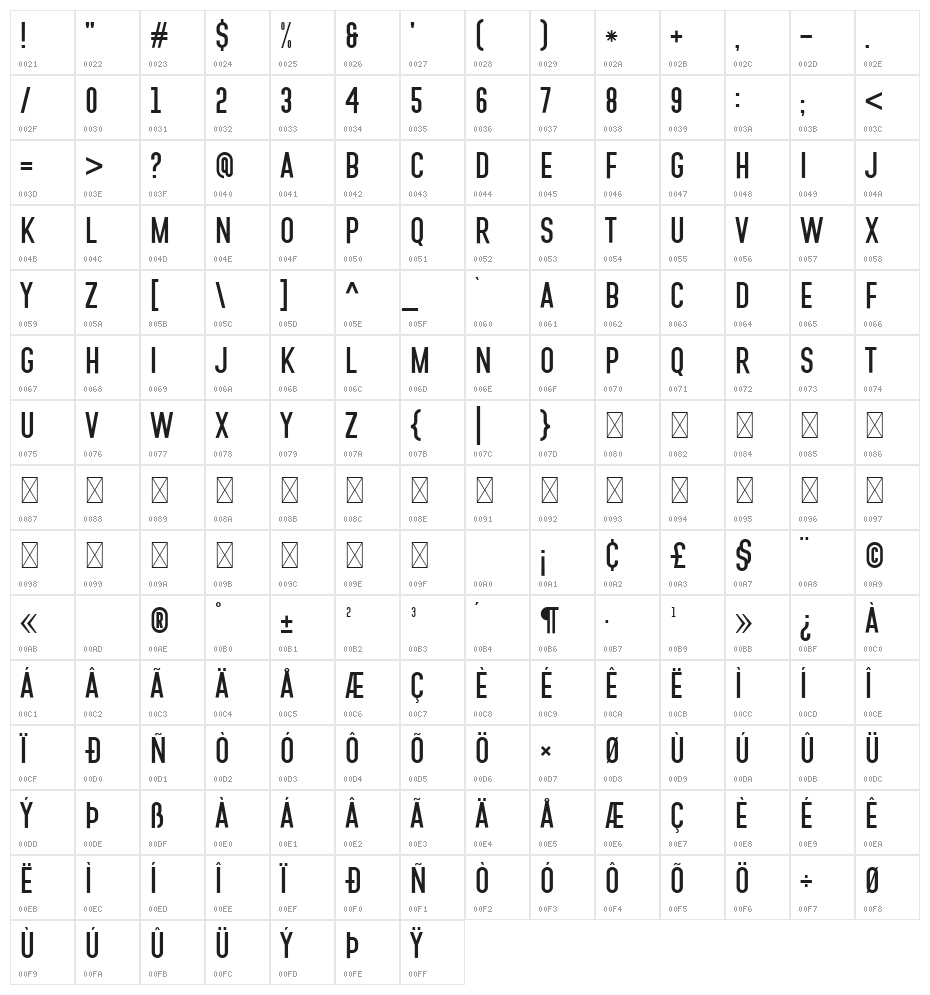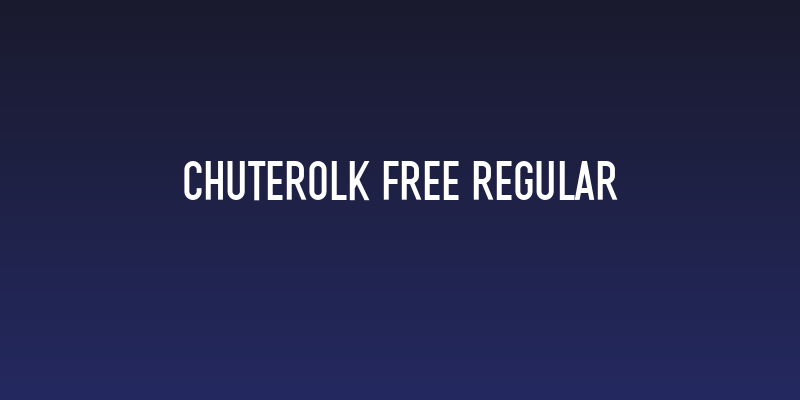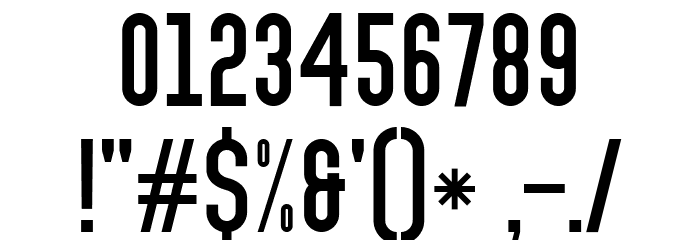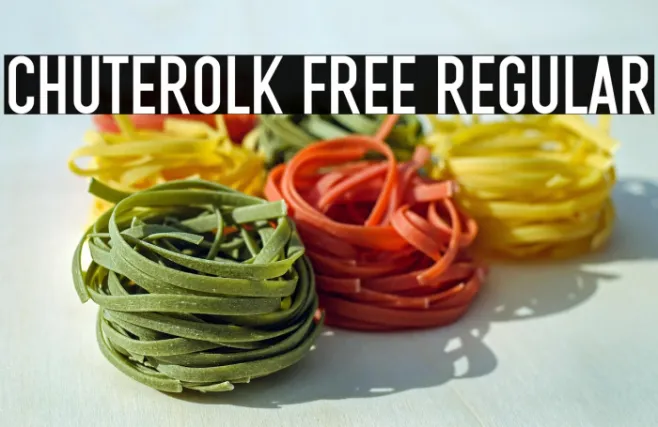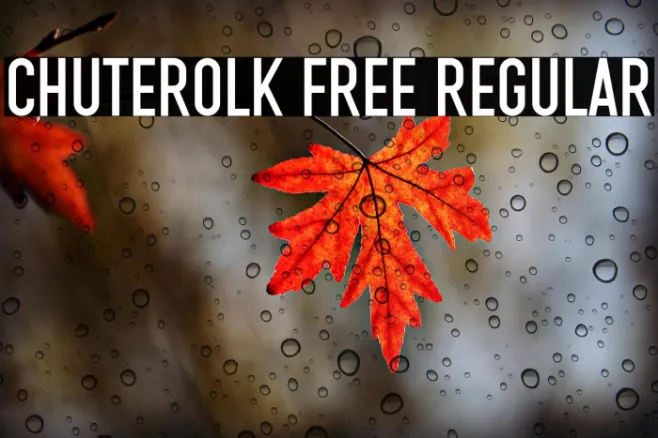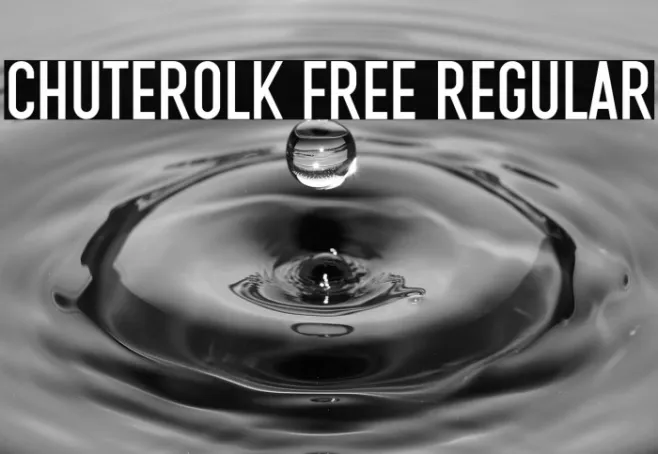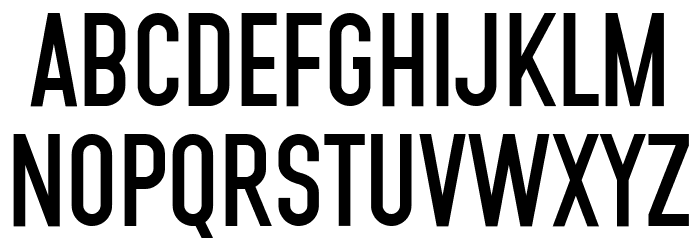
CHUTEROLK Free Regular Font
CHUTEROLK Free Regular Description
This font features a bold and modern sans-serif style with clean, straight lines and uniform stroke widths. The characters are tall and slightly condensed, giving a strong and impactful appearance. The uppercase letters are prominent and well-defined, while the lowercase letters maintain a consistent height and width, ensuring readability. The numerals are clear and distinct, matching the overall aesthetic of the font. Special characters are included, providing versatility for various design needs. The font's simplicity and clarity make it suitable for a wide range of applications.